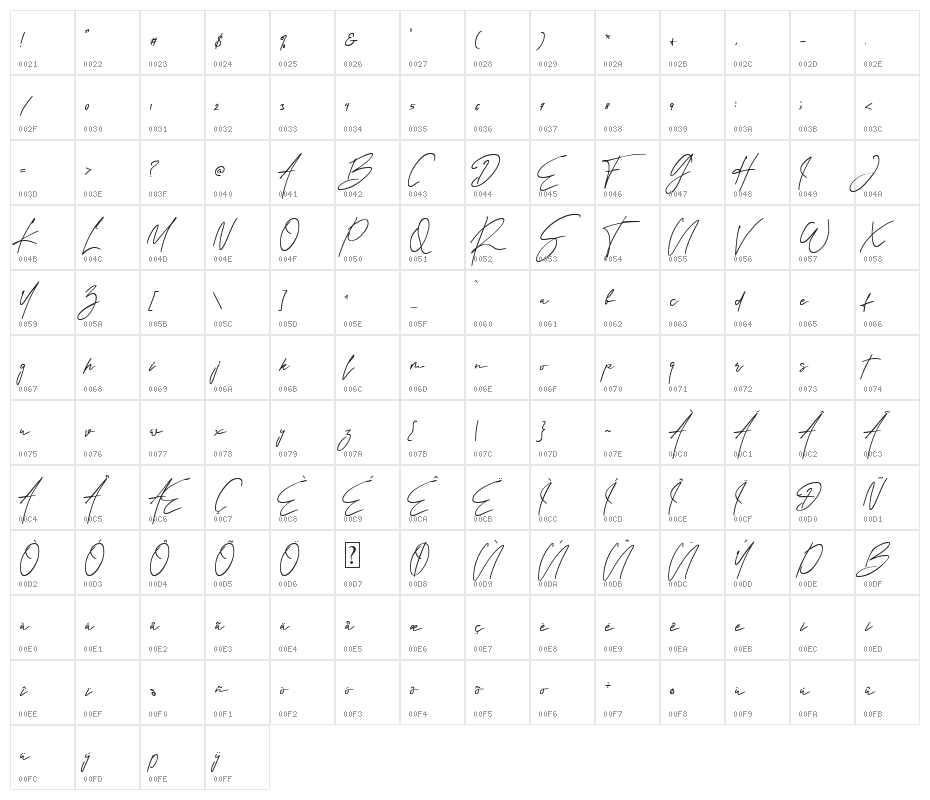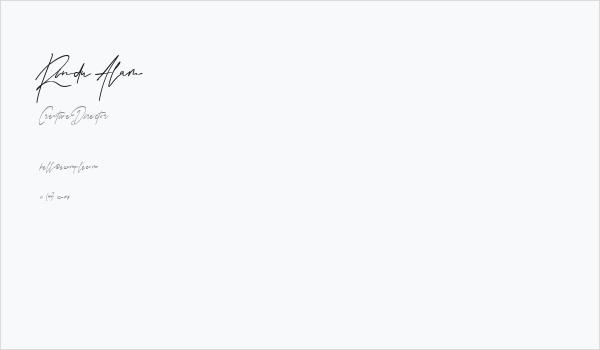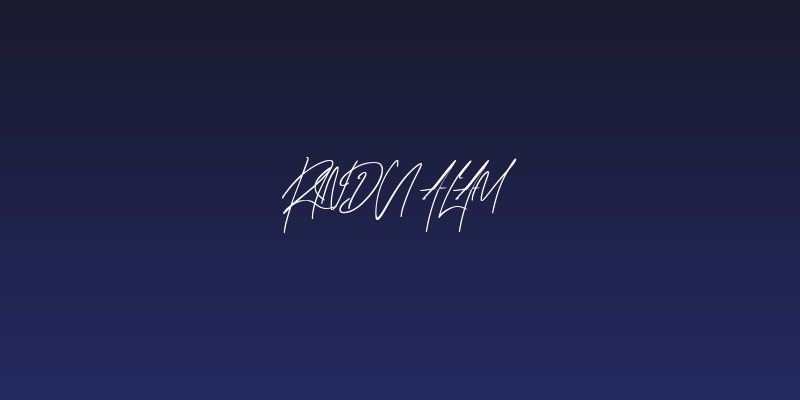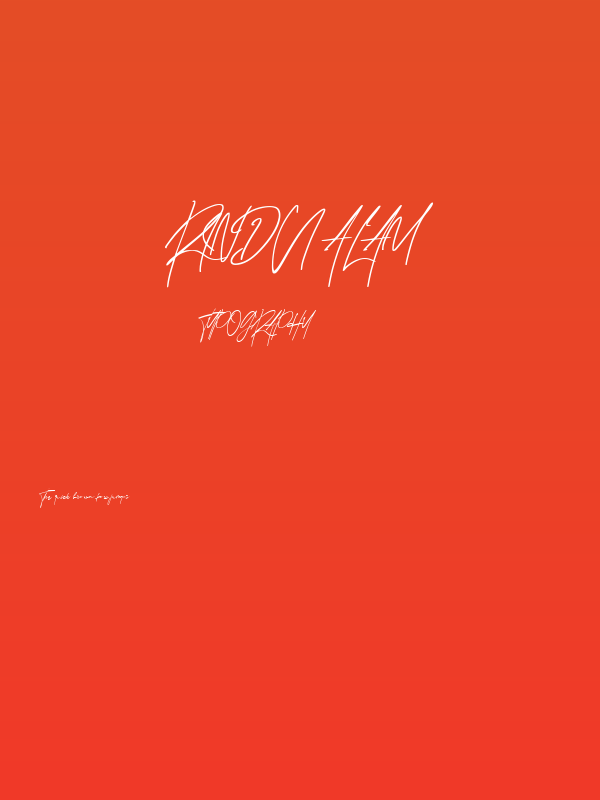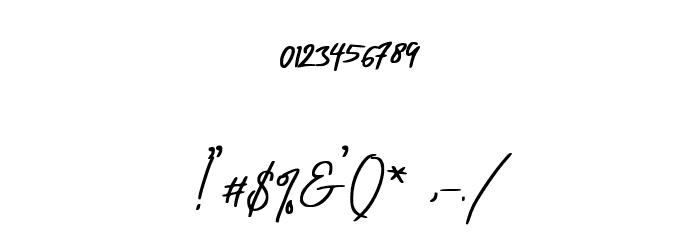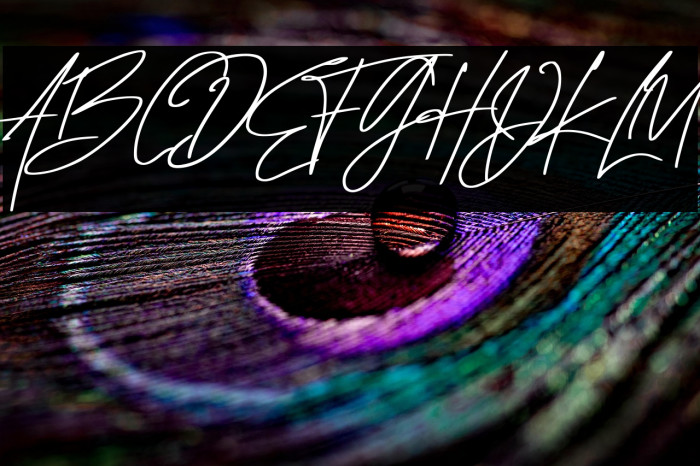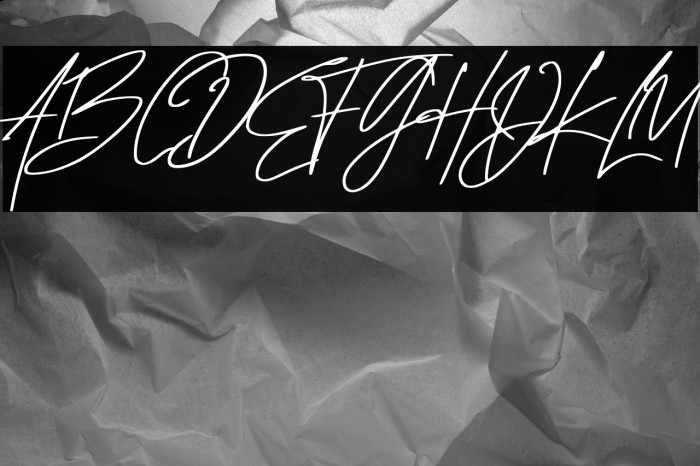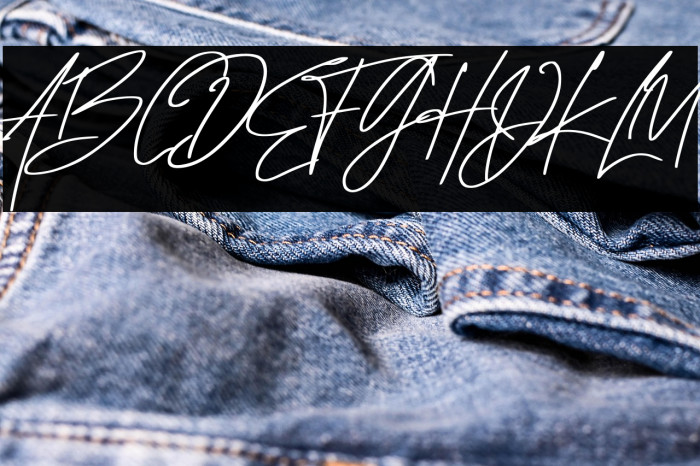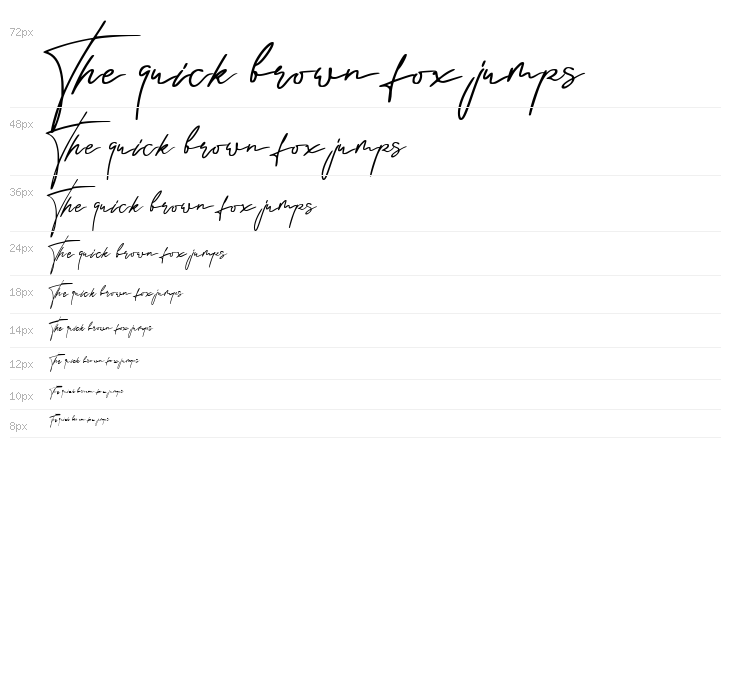
Rindu Alam Font
Rindu Alam Description
This font exudes a dynamic and expressive style, characterized by its fluid, handwritten appearance. The letters are elegantly elongated with a slight slant, giving a sense of movement and grace. The strokes vary in thickness, adding a natural and organic feel to the text. The uppercase letters are bold and prominent, while the lowercase letters maintain a consistent flow, enhancing readability. The numerals and special characters are crafted with the same attention to detail, ensuring a cohesive look across all elements. This font is perfect for projects that require a personal touch or an artistic flair.